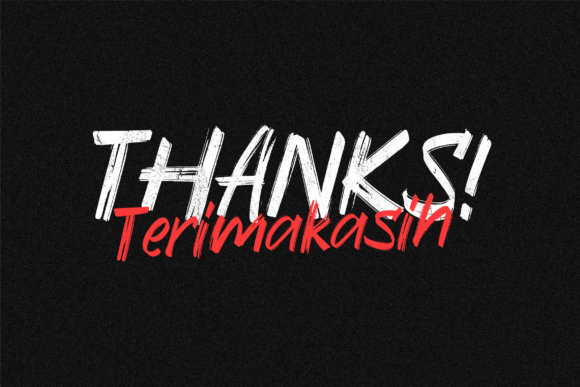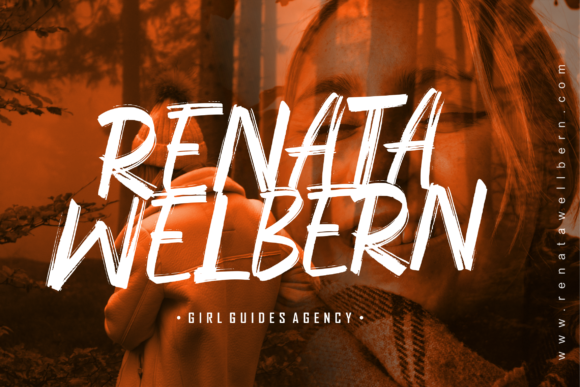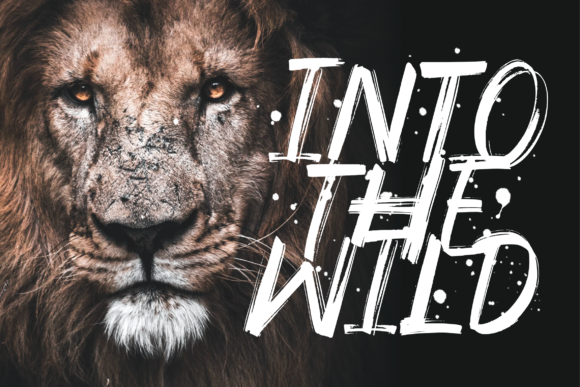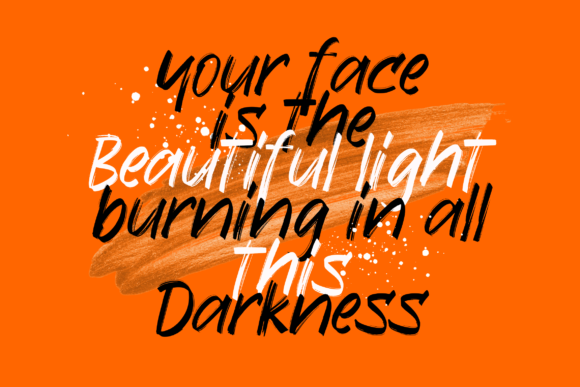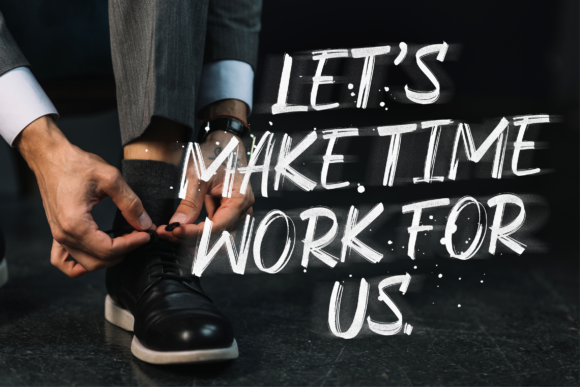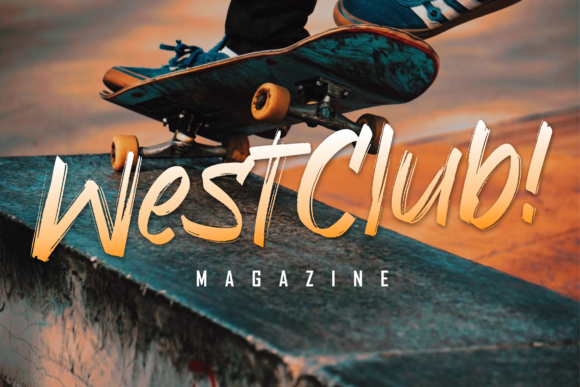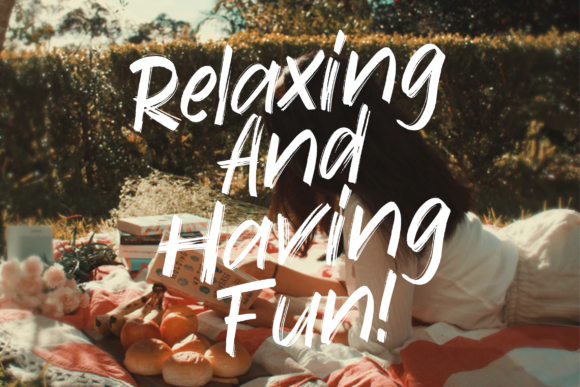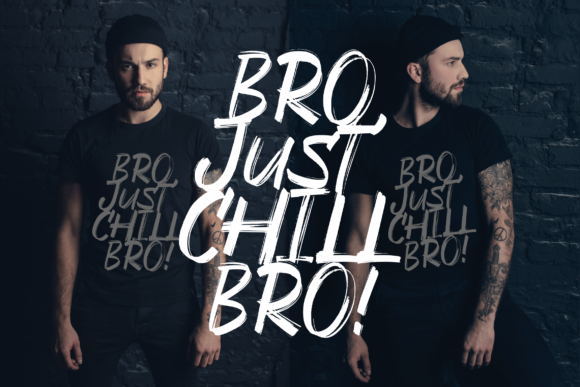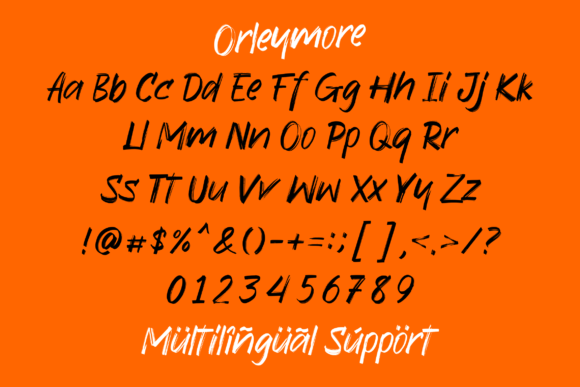
Orleymore Font
About Orleymore Font
Orleymore is a lovely brush-style handwritten font. With an artistic flair and a crafty feel, this typeface is perfect for product packaging, branding, watermarks, social media, and more!